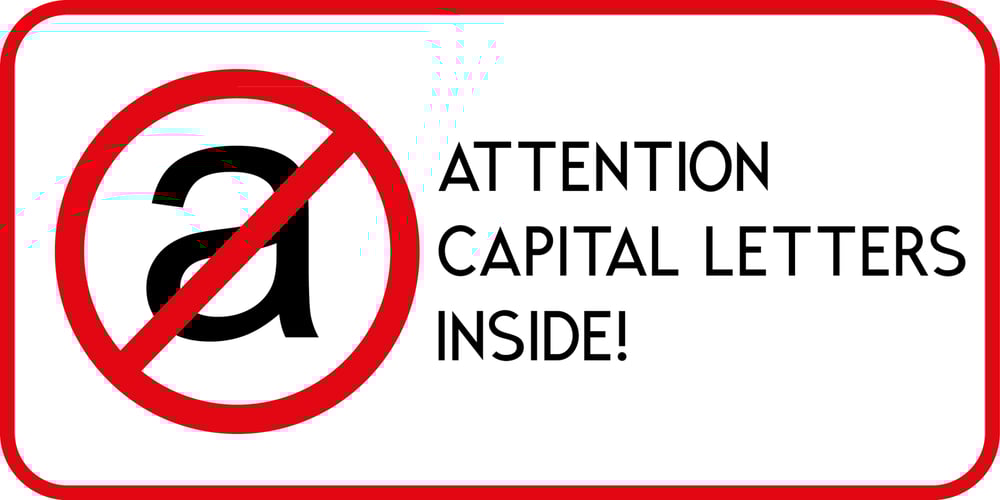
Masculina
Masculina font
Masculina Font Family was designed by Leonhard Katschner and published by Brave Type. Masculina contains 2 styles and family package options. Masculina is a strong font with sharp ends. It is a majuscule font and supports many languages. If you love capital letters, Masculina is a must-have. It is recommended for signs and headlines but there are many more ways to use it. Masculina is ready for you. Make the maximum out of it.